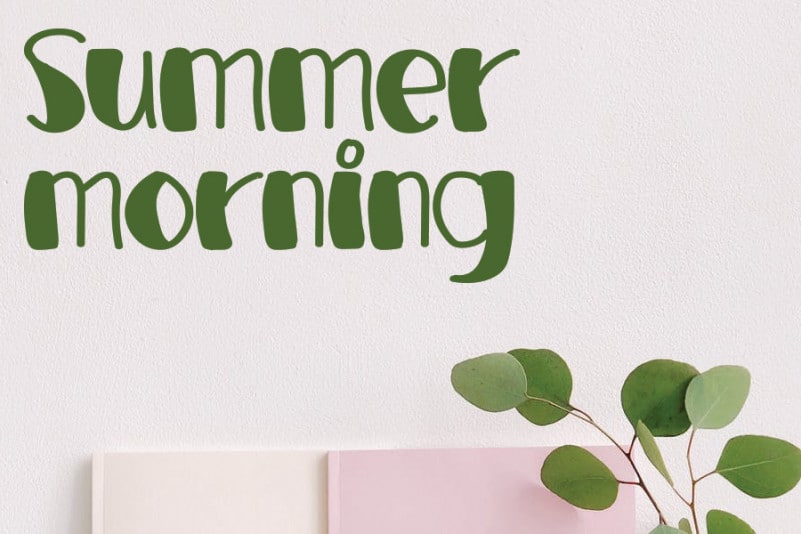
Professional Handwritten Font
Professional Handwritten Font embodies fun, quirkiness and authenticity. This enchanting display font will turn any creative idea into a true standout.